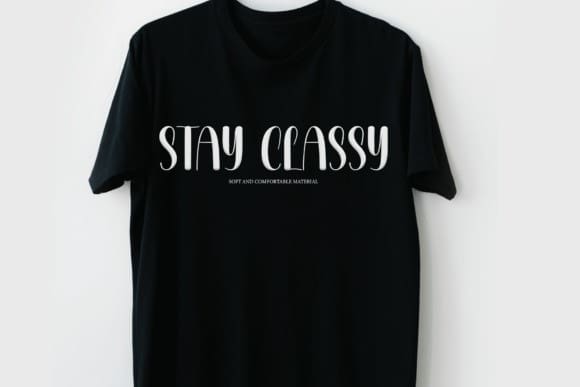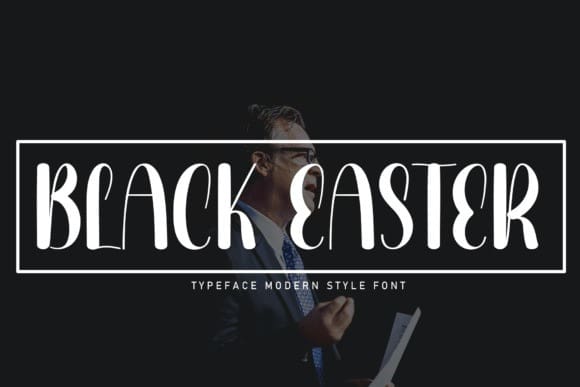
Black Easter Font
Black Easter Font is a sweet and friendly handwritten font. Cute and fun, this font is ideal for writing wedding invitations, cards, or any other design that might need a lovely touch!